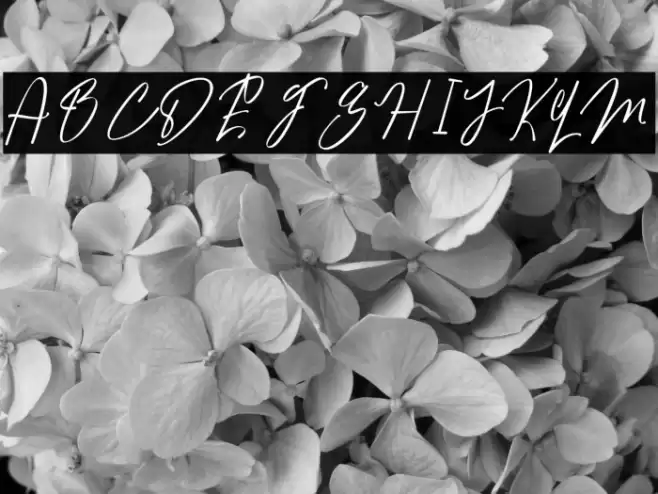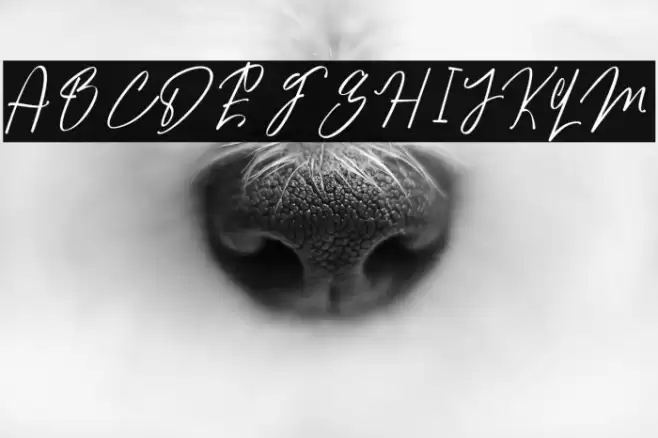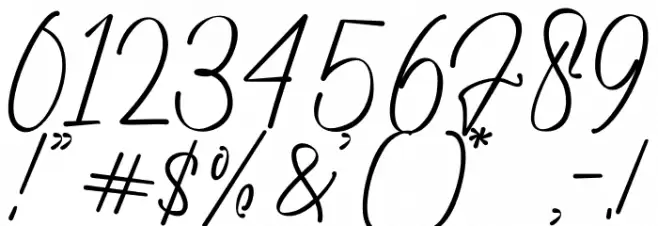
Elmatia Font
Elmatia Description
This font features a flowing, cursive style that mimics elegant handwriting. The letters are connected in a smooth, continuous manner, giving it a natural and personal touch. The uppercase letters are slightly more elaborate, with swooping curves and loops, while the lowercase letters maintain a consistent flow. The numerals are clear and legible, maintaining the cursive style without sacrificing readability. Special characters are thoughtfully designed to match the overall aesthetic, adding a cohesive look to any text. This font is perfect for projects that require a personal, handwritten feel.
A cursive, handwritten-style font with elegant, flowing letters from Uncategorized fonts.
- Font: Elmatia
- Proposed Projects: Ideal for wedding invitations, personal letters, greeting cards, and branding that requires a personal touch.
- Overall Style: Elegant, Handwritten
- Use Case: Logos, Invitations, Personal Correspondence
Elmatia UPPERCASE
Elmatia LOWERCASE
Elmatia OTHER CHARS